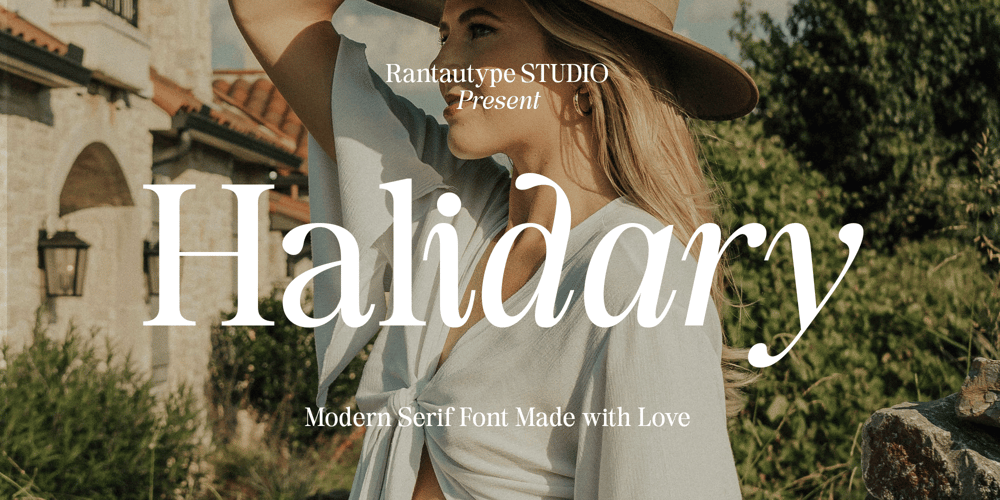
Halidary Font Family was designed by Yudi Pratama Chandra and published by RantauType. Halidary contains 2 styles and family package options. Halidary is a modern serif font that embraces elegance. Halidary brings a touch of charm and sophistication to branding, editorial designs both come in two versions one with more contrast and crisper, you can mix and match them to create creative design project.Halidary is a beautiful choice for any creative endeavor, creating elegant, modern, chic, lifestyle design such as logotype, title, cover, branding, invitations, wedding designs, display and magazine, social media posts, advertisements, printed quotes, product packaging, corporate brand, product designs, labels, photography, watermarks, special events and any other project with elegant touch.What you have: Standart Glyphs Numberial and Functional Ligature and alternate Works on PC & Mac Simple installations Accessible in Adobe Illustrator, Adobe Photoshop, Adobe InDesign, even work on Microsoft Word. Fonts include multilingual support for: Afrikaans, Albanian, Basque, Bemba, Bena, Breton, Catalan, Chiga, Cornish, Danish, Dutch, English, Estonian, Filipino, Finnish, French, Galician, German, Icelandic, Indonesian, Irish, Italian, Kinyarwanda, Luxembourgish, North, Norwegian, Portuguese, Romansh, Rombo, Rundi, Scottish, Gaelic, Sena, Shambala, Shona, Soga, Somali, Spanish, Swahili, Swedish, Swiss, German.Thank you for your purchase!Hope you enjoy with our font!